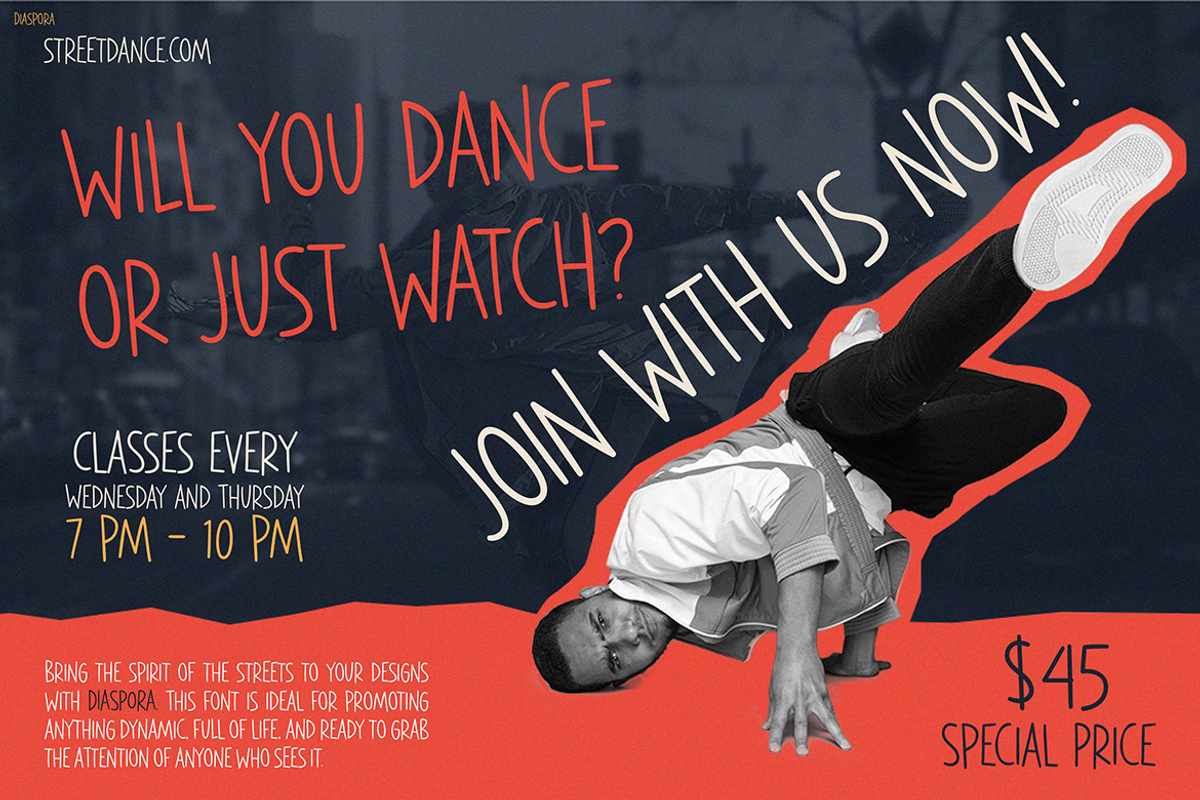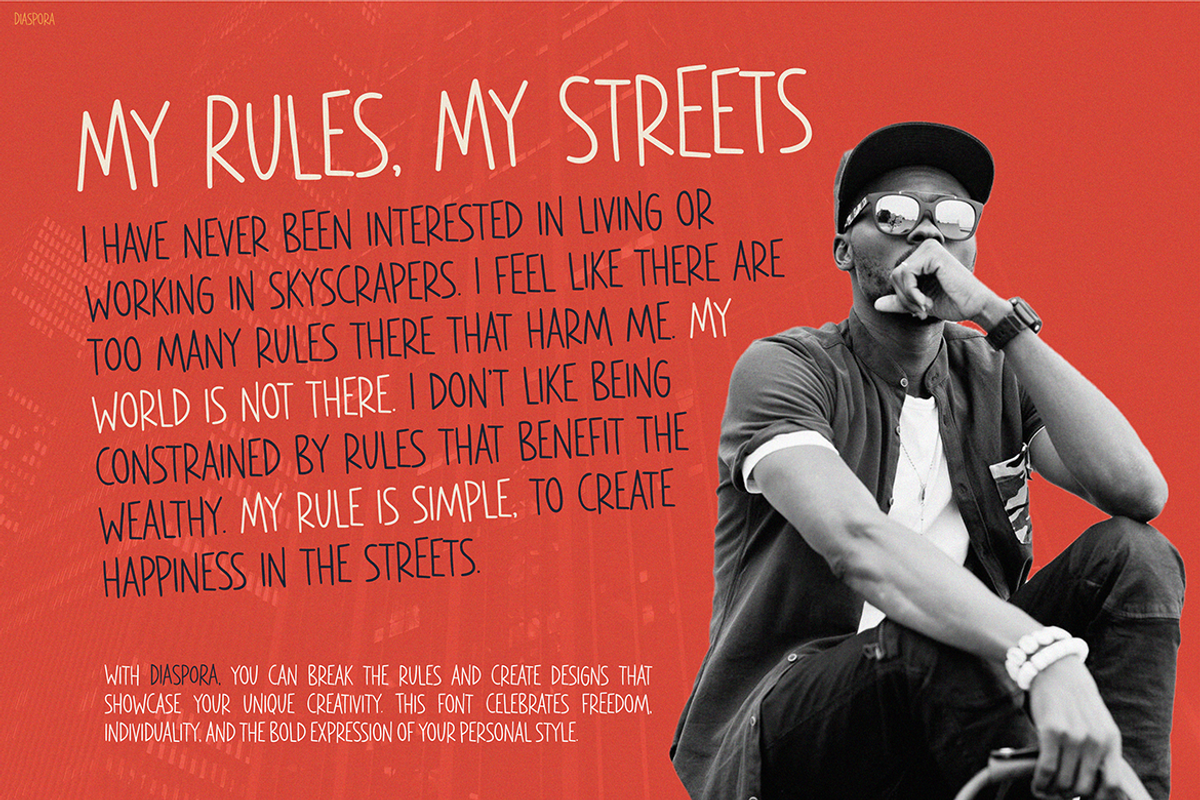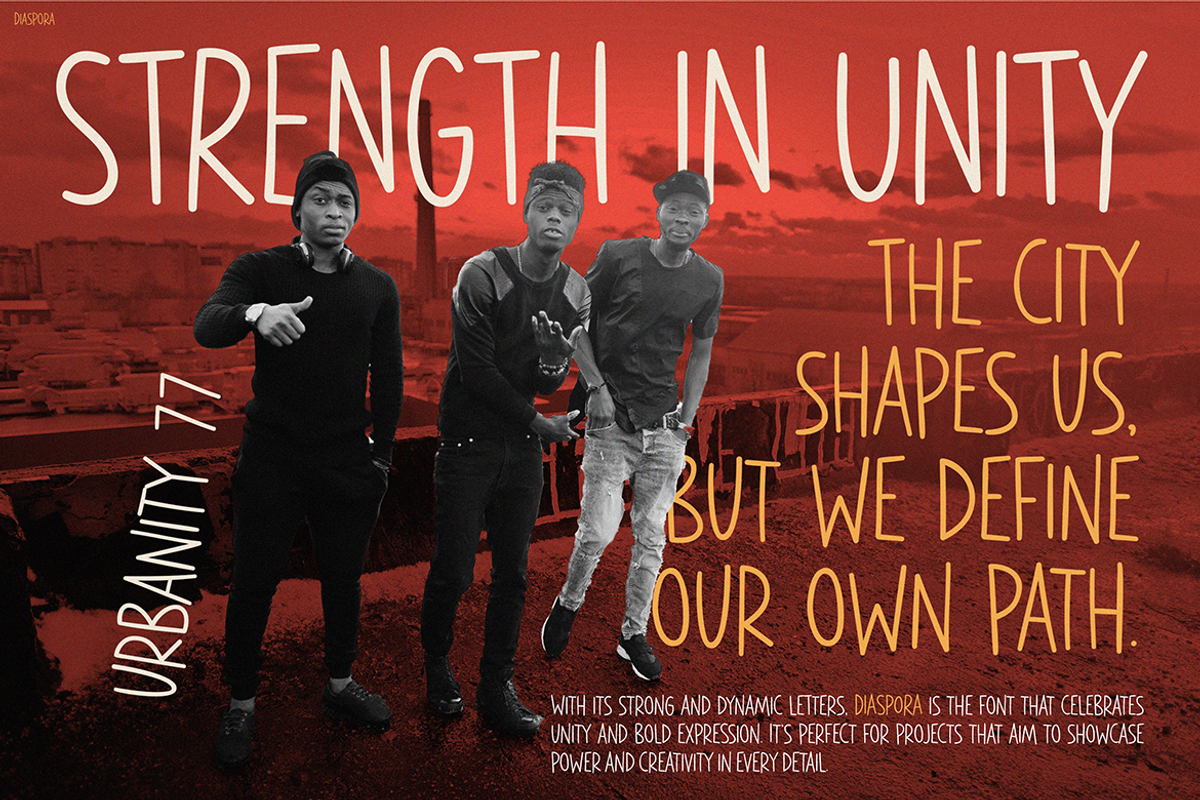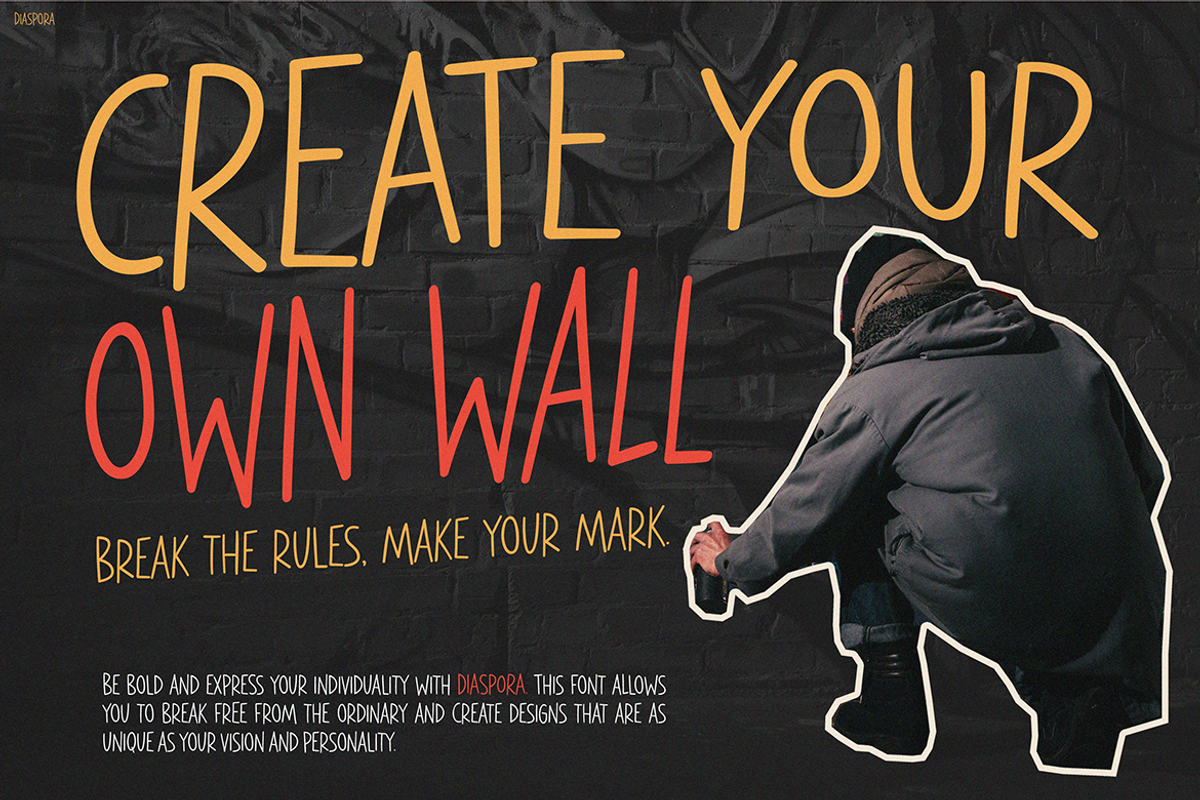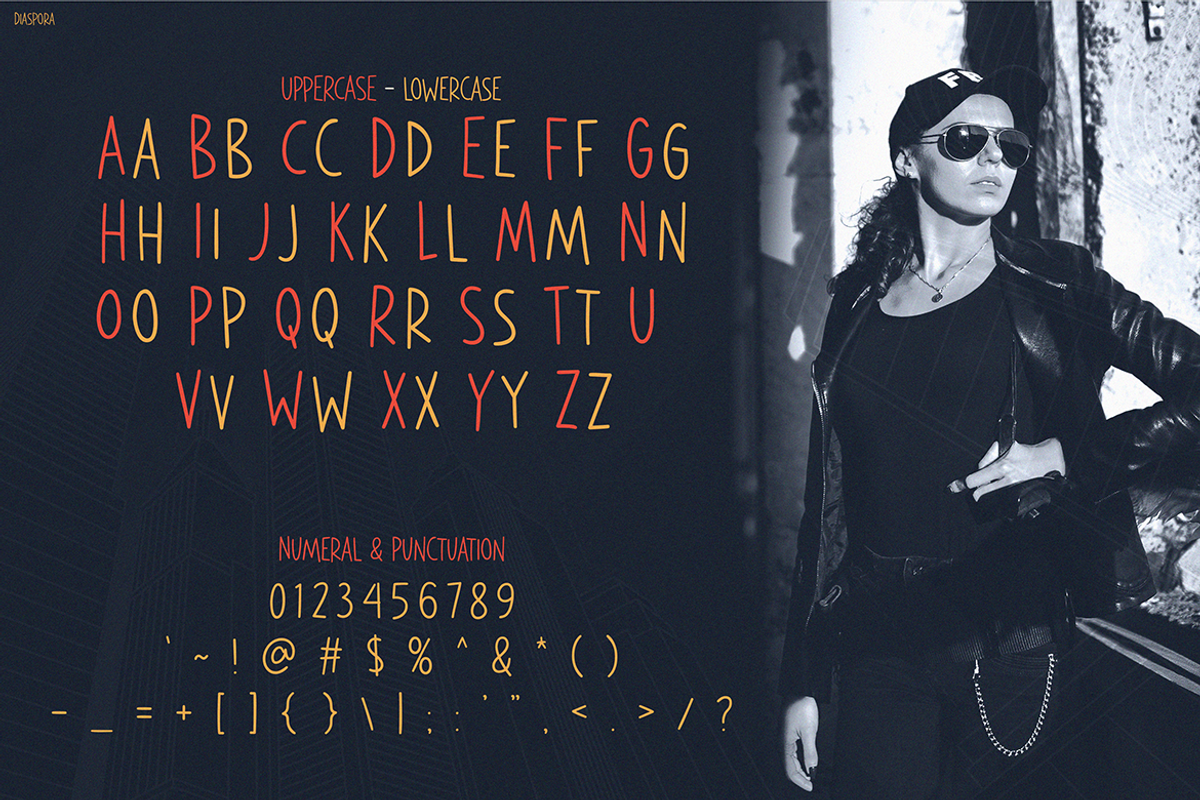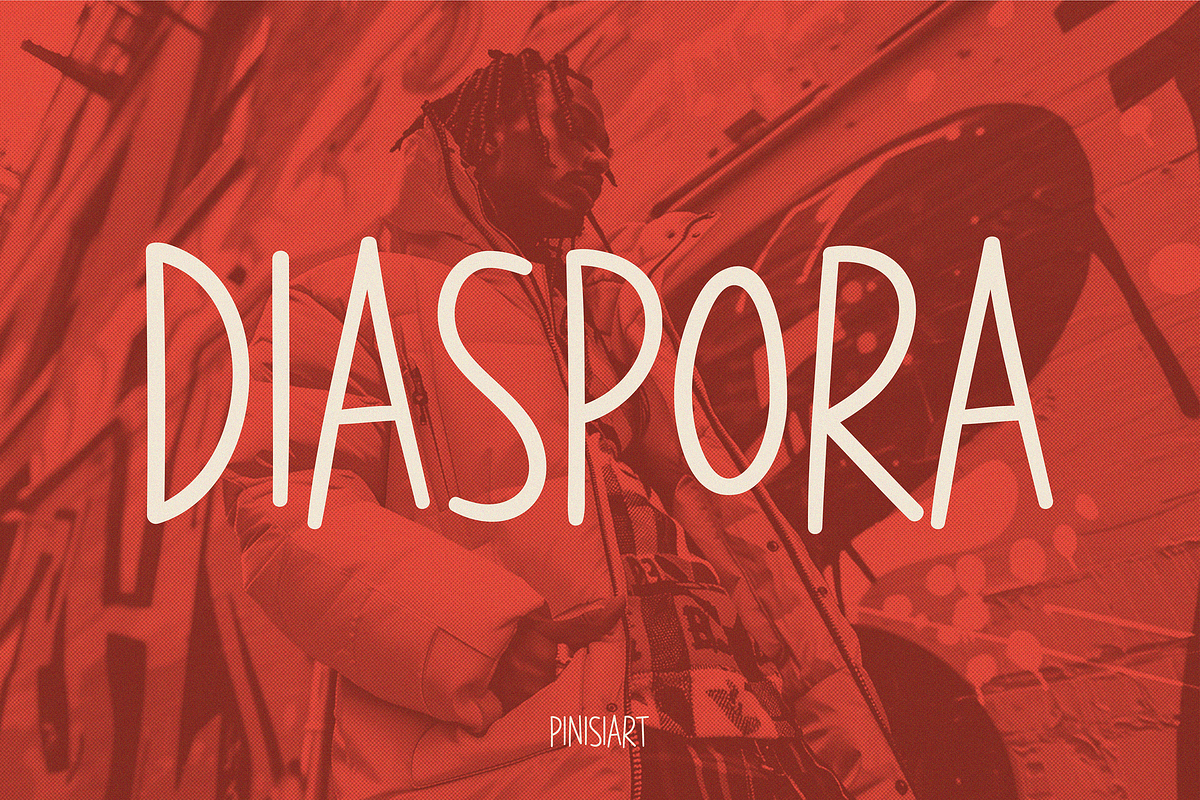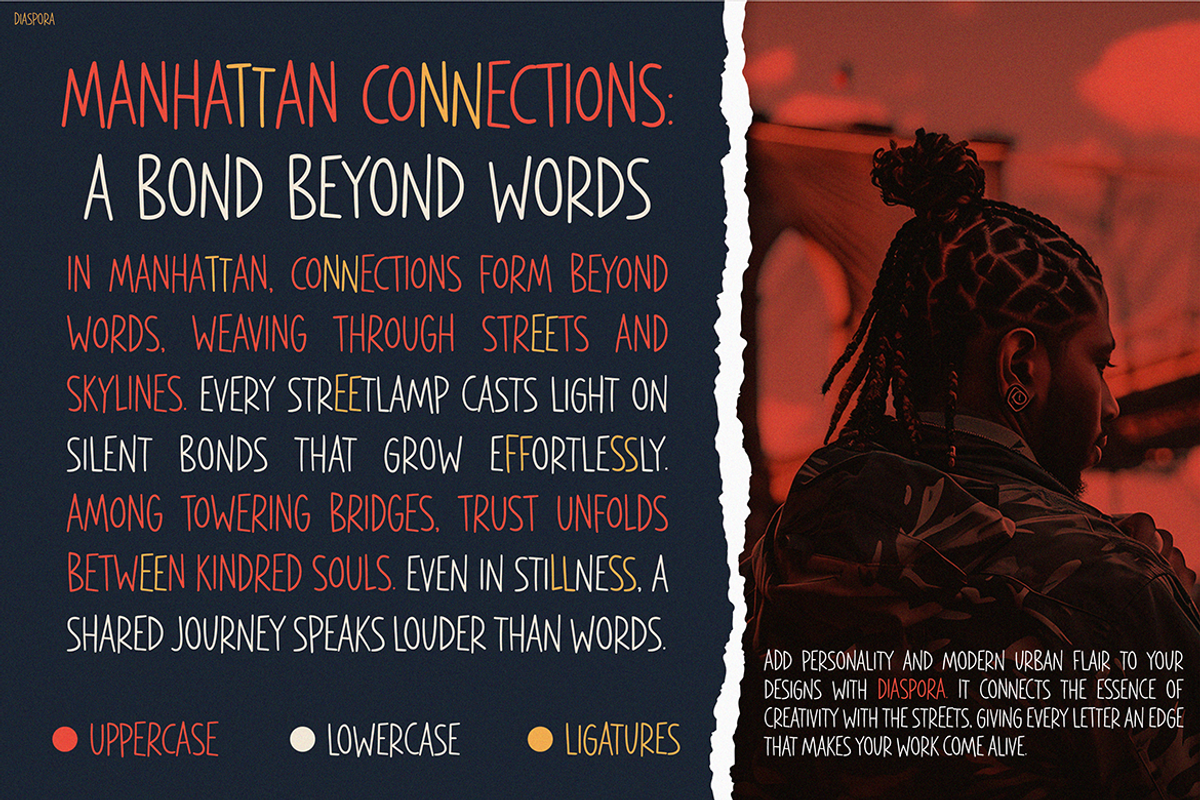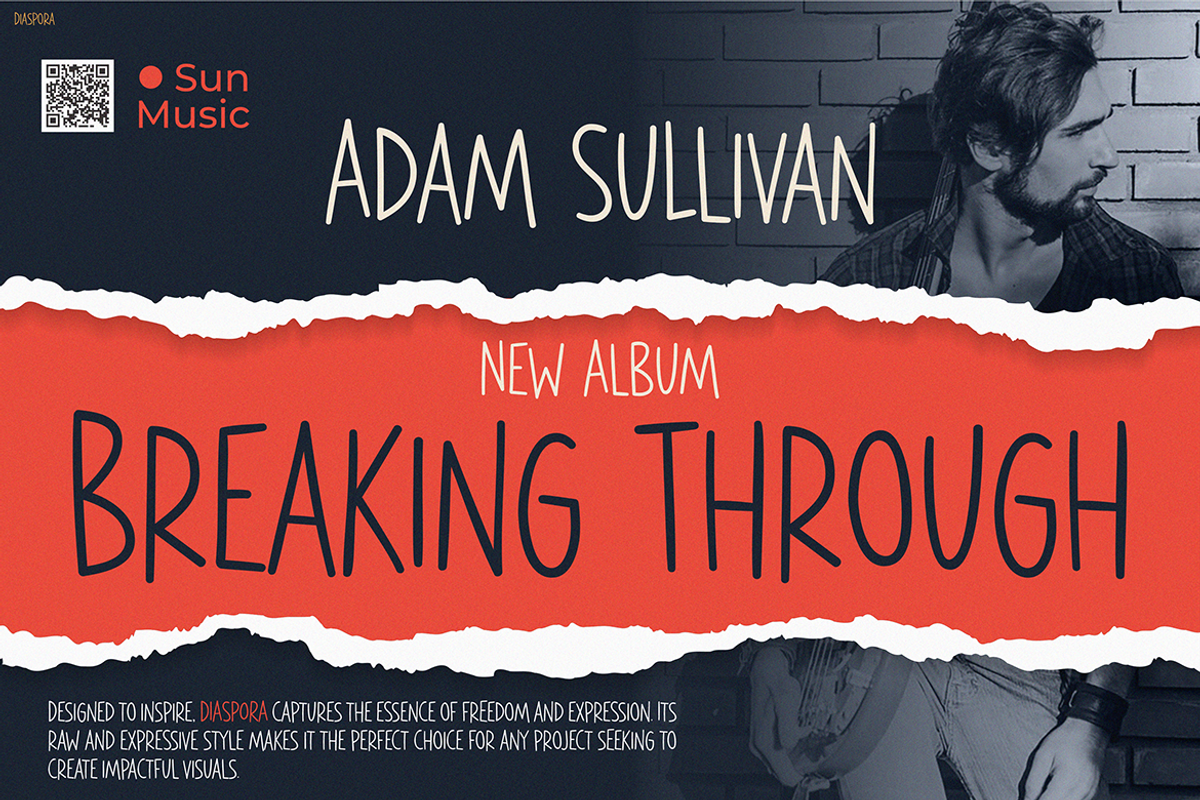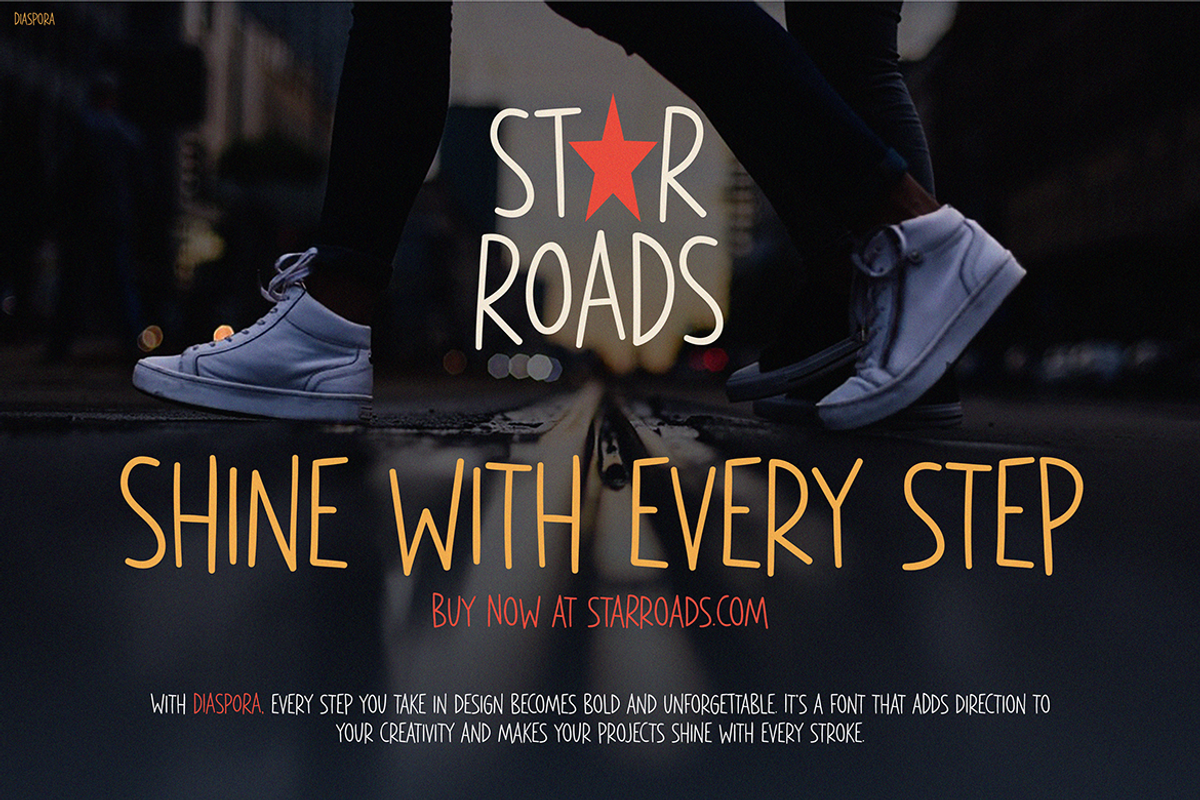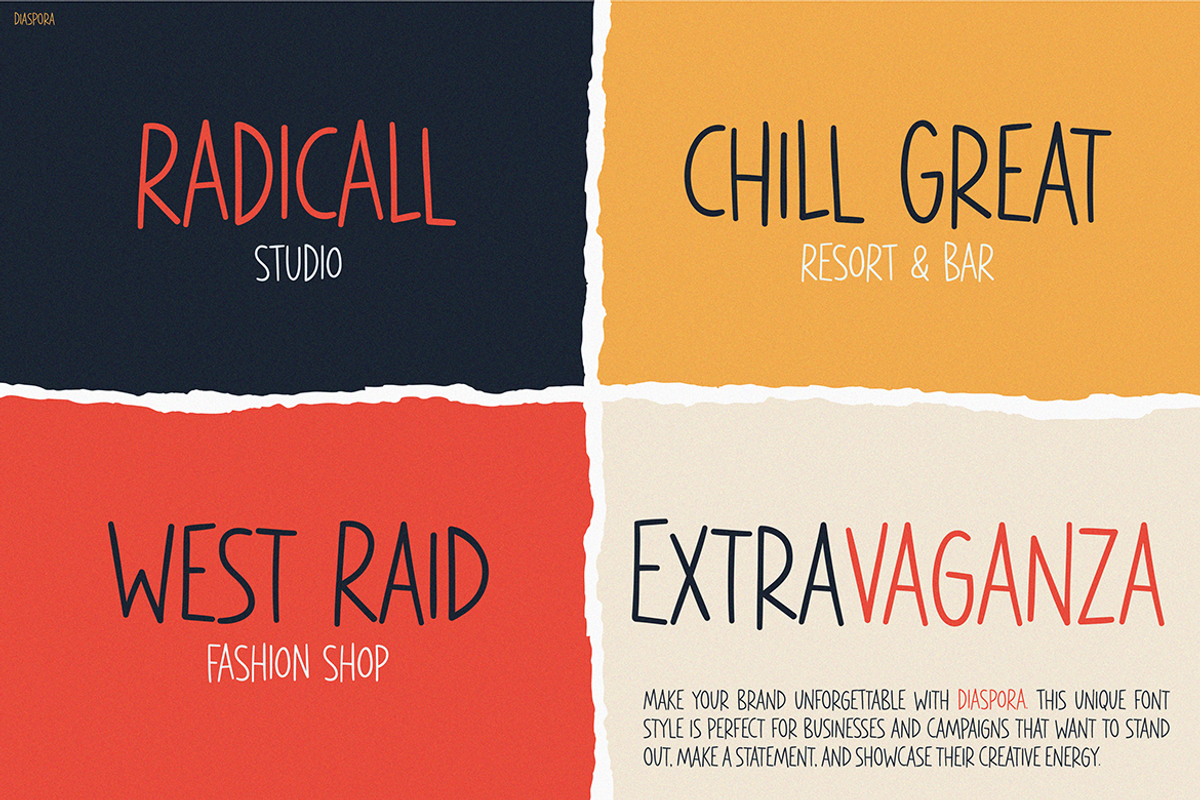
DIASPORA
andwriting Font DIASPORA is a dynamic and expressive typeface that truly captures the raw energy of urban culture. Its casual strokes and artistic feel instantly make designs stand out. Whether you’re working on branding, editorial layouts, or social media content, DIASPORA adds a unique, handcrafted touch that enhances your work.
This font features fluid lines and natural irregularities, creating an authentic and personal look. Inspired by street art, hip-hop, and modern calligraphy, DIASPORA is more than just a font—it’s a statement. Moreover, its balance of spontaneity and structure ensures readability while enhancing artistic impact. Each letter feels natural, like handwriting in motion, which makes your message appear organic and expressive.
Additionally, DIASPORA works seamlessly in both digital and print media. Its free-flowing design makes it versatile for posters, album covers, fashion branding, and editorial layouts. Whether you need a stylish typeface for headlines or an eye-catching font for promotional content, DIASPORA adapts effortlessly. As a result, its distinctive style grabs attention, making every word feel personal and full of energy.